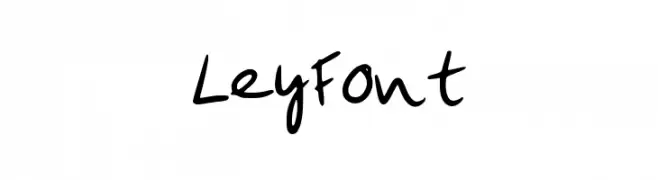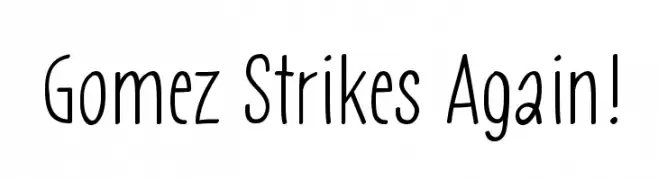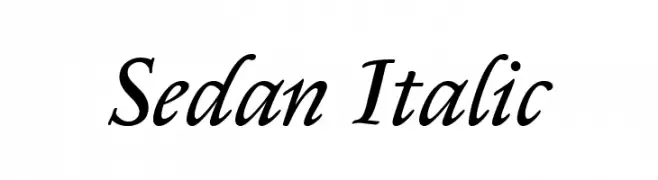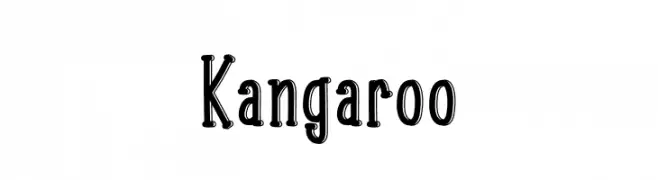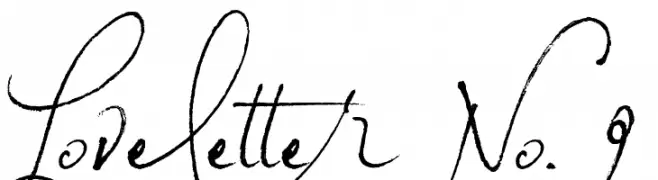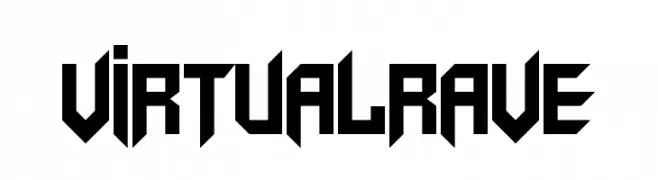
A playful, handwritten font with a casual and informal style.
A playful, whimsical font with tall, narrow letterforms and irregular strokes.
An elegant italic typeface with smooth curves and a refined, sophisticated style.
A playful, hand-drawn font with bold, rounded strokes and quirky character shapes.
A romantic, cursive script font with elegant, flowing lines and decorative flourishes.
A modern sans-serif representation of the traditional Kaithi script.
A bold, geometric font with a futuristic, tech-inspired design.